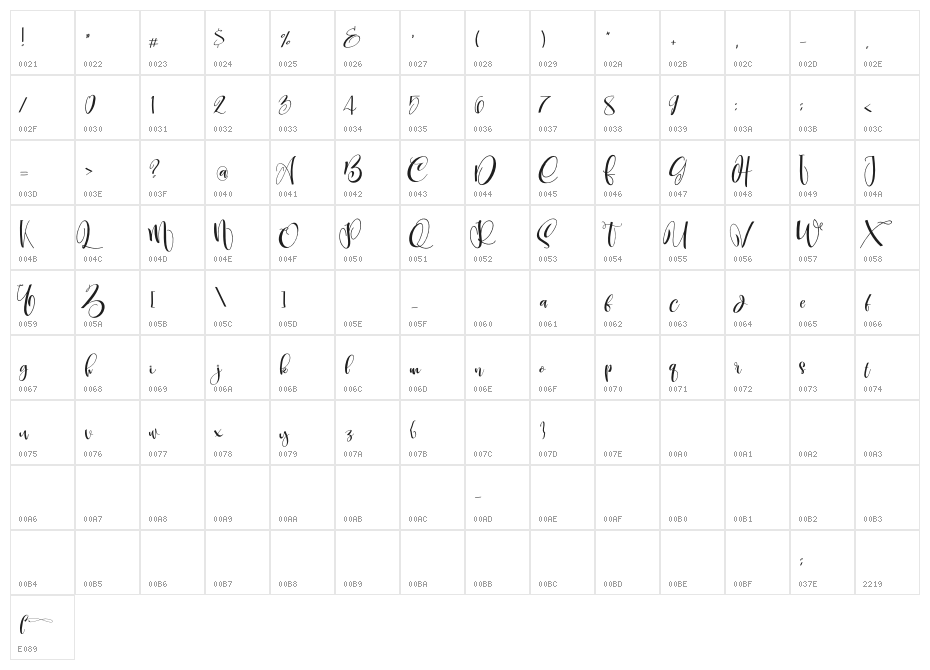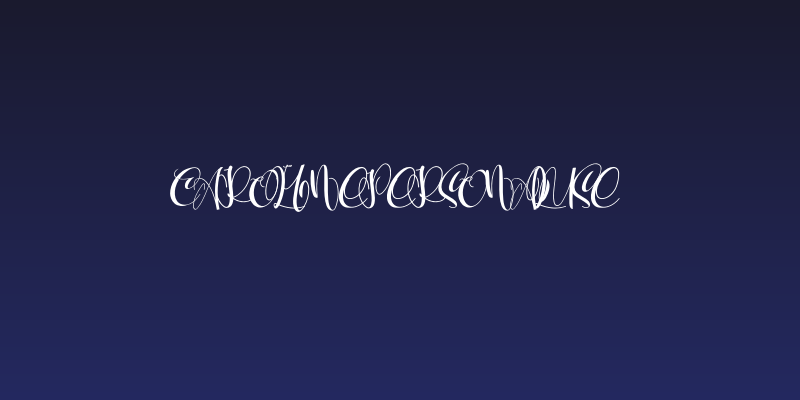
CarolynePersonalUse Font
CarolynePersonalUse Description
This font features an elegant and flowing script style, characterized by its intricate and looping letterforms. The uppercase letters are particularly elaborate, with dramatic swashes and flourishes that give a sense of movement and grace. The lowercase letters maintain a more consistent flow, offering a harmonious balance between readability and decorative appeal. The numerals and special characters are designed to complement the overall aesthetic, with a similar emphasis on curves and fluidity. This font exudes a sense of sophistication and artistic flair, making it ideal for projects that require a touch of elegance and personality.